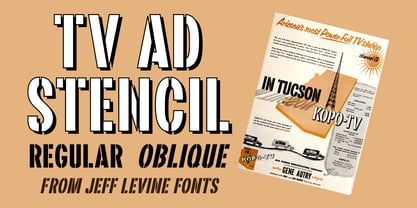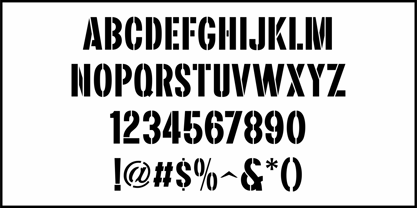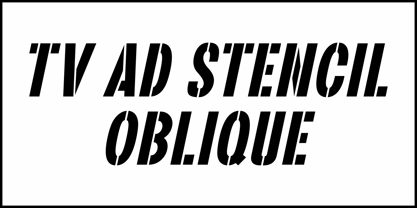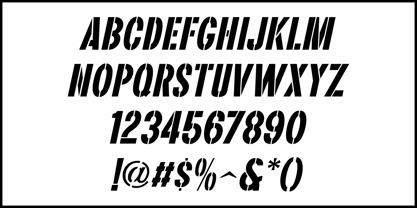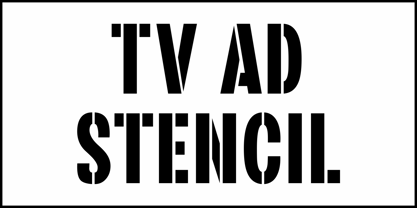
TV Ad Stencil JNL
by Jeff Levine
The TV Ad Stencil JNL Font Family was designed by Jeff Levine and published by Jeff Levine. TV Ad Stencil JNL contains 2 styles and family package options. More about this family
In the January 19, 1953 issue of Broadcasting Telecasting Magazine was an ad for KOPO-TV in Tucson, Arizona. The main ad copy was done in a bold sans serif stencil type that's now available digitally as TV Ad Stencil JNL in both regular and oblique versions.